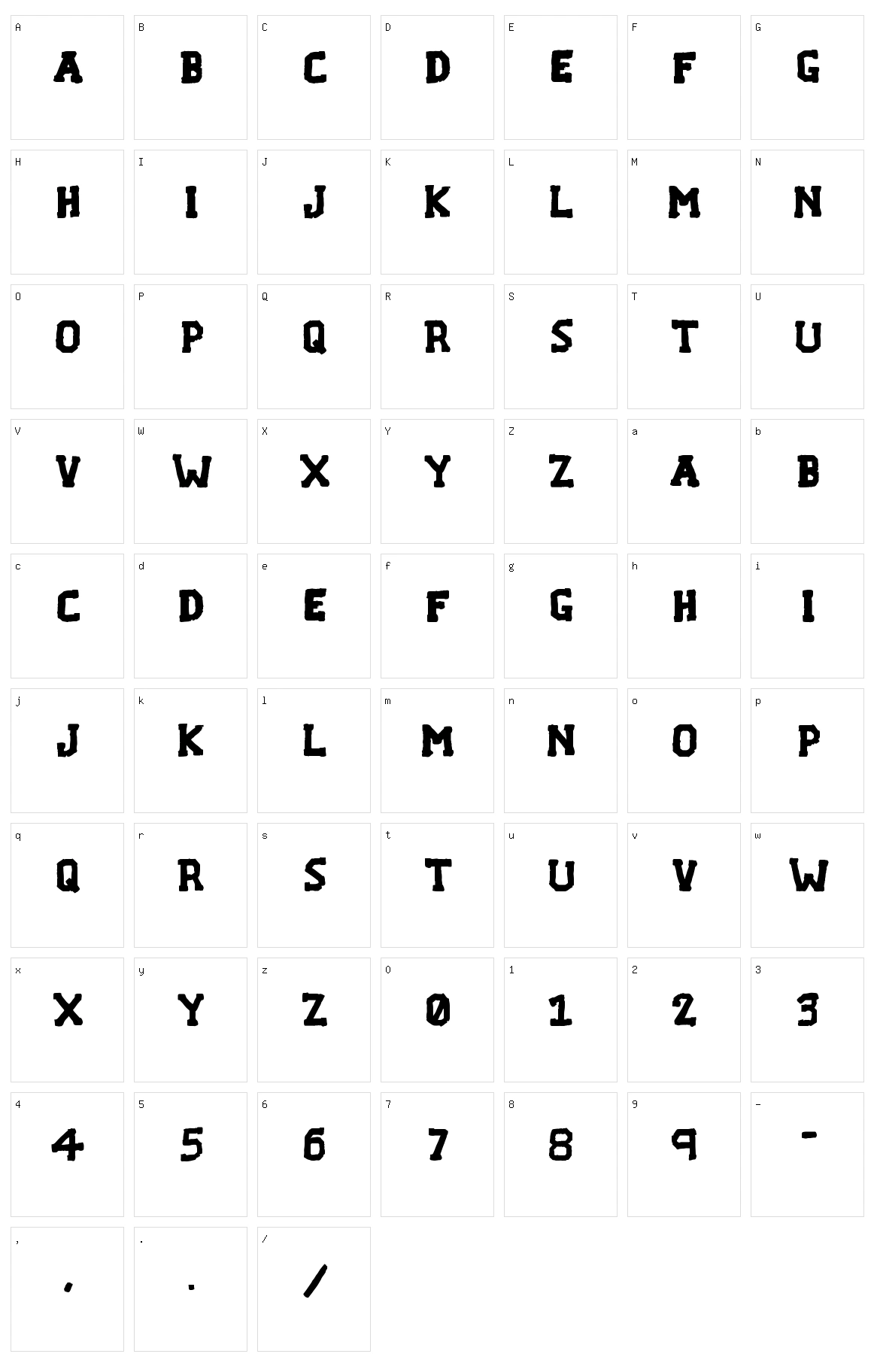
The free font F... Vermont is carefully designed by F is for Fonts, showcasing a thoughtful balance of creativity and usability and falls under the Old School font style. When you download the ZIP file, it contains only 17.55 KB of font files, making it lightweight and quick to download. Please review the license details below to understand permitted usage and distribution rights. If license information is not available, we recommend using this font for personal projects only or contacting the author directly for commercial usage permissions.